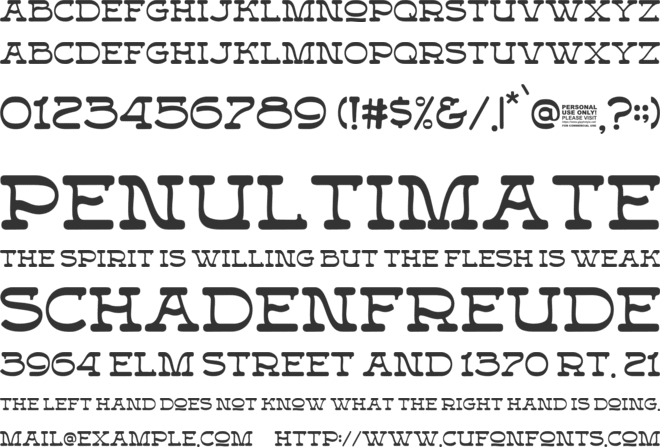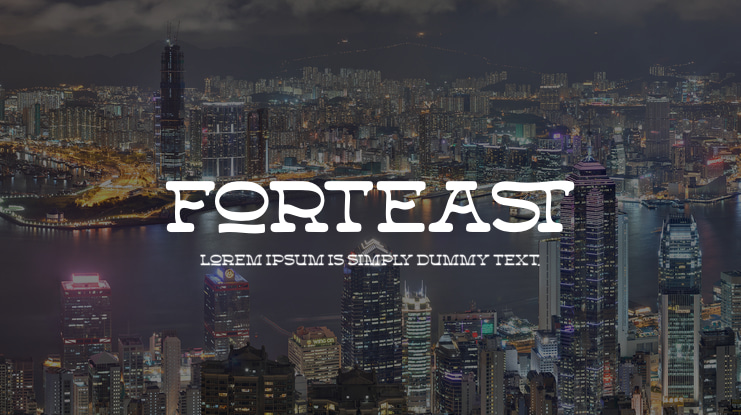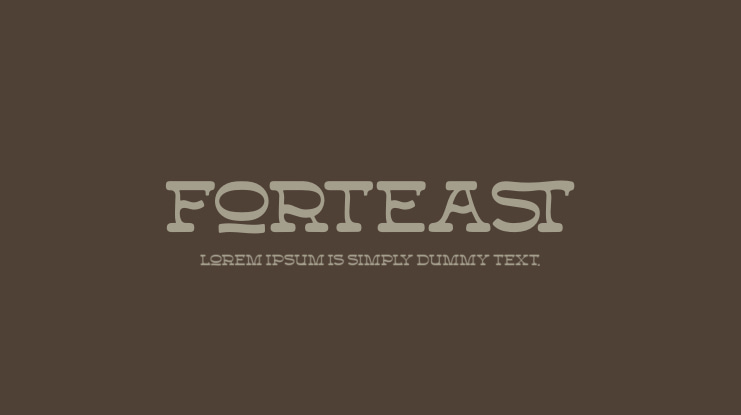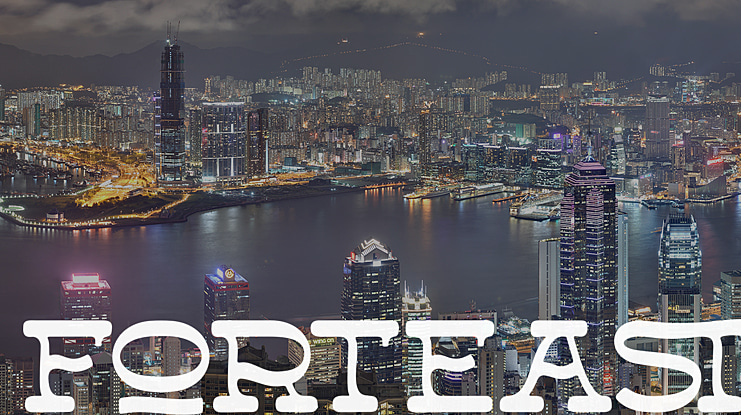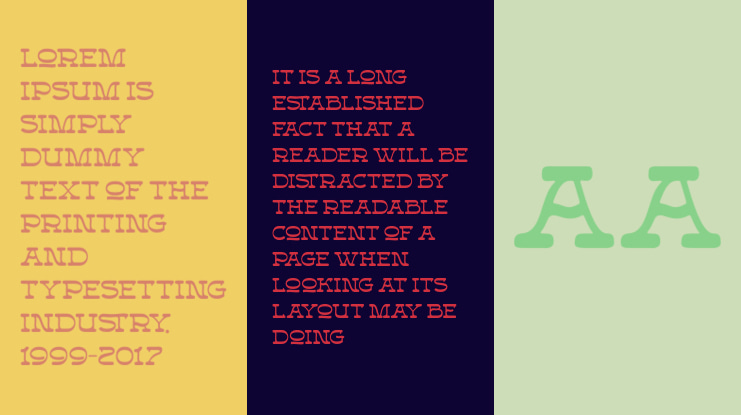
Forteast Font
Forteast is a smooth slab serif. slab serif that has a shape with a smooth curve. has two styles, normal and rough, there is also an italic version.